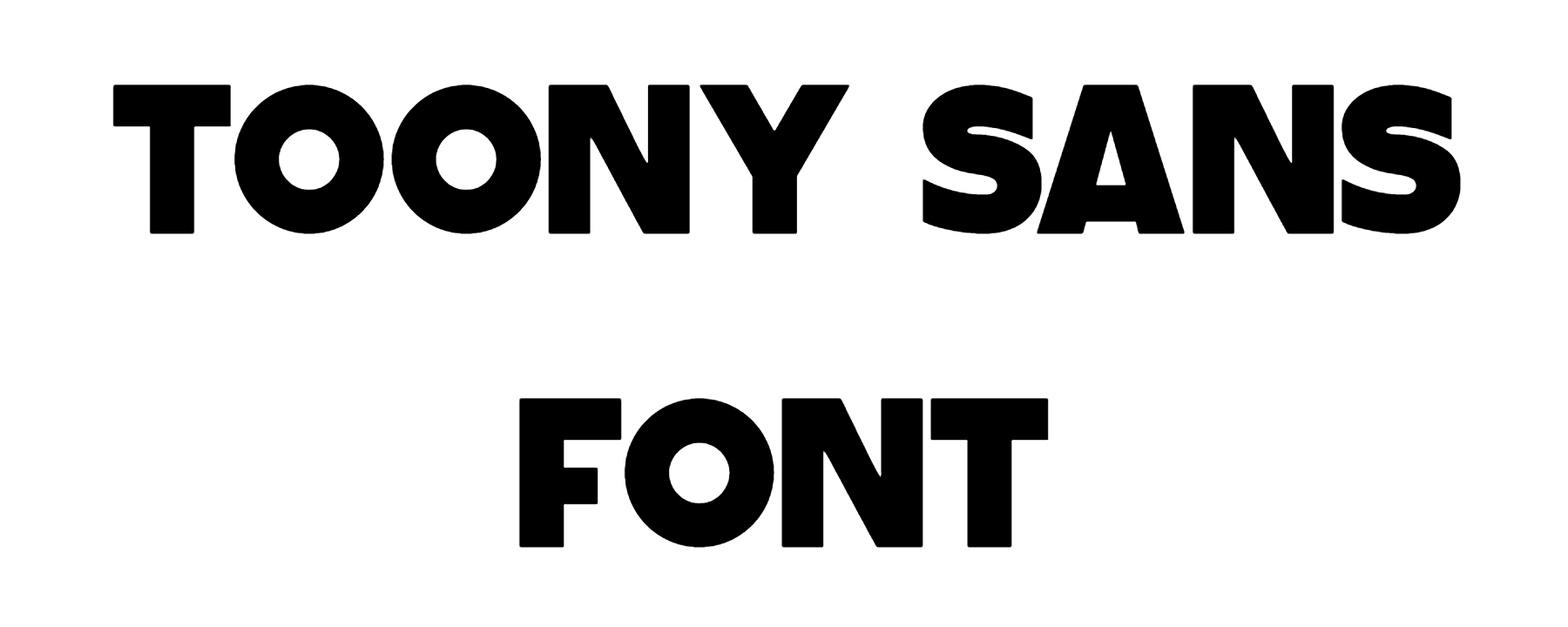
Toony Sans
Toony Sans is a sans serif font made by Mans Greback (2023). Its clean letters skip the little "feet" (serifs) of traditional type, so it looks modern and reads well on screens. You get two styles in one free ZIP, and the preview above lets you test each one before you download.
- Glyphs: 1,388 in the Regular style
- OpenType features: Ligatures, 2 stylistic sets, old-style numbers and fractions
What You Can Type With Toony Sans
Toony Sans covers the full alphabet in upper and lowercase, plus all ten numbers, so you can set names, dates and prices without switching fonts. Everyday marks like &, !, ? and @ are there too. Thanks to its accented letters, it also works for Spanish, French, German, Portuguese and Italian, not just English.
Where Toony Sans Works Best
Toony Sans is a natural fit for websites, app screens and clean logos. It works for headings and body text alike. If the download has several weights, use a heavier one for titles and a lighter one for paragraphs. Because the family has more than one style, you can mix them in a single design for headings, subheadings and highlights.
Who designed Toony Sans font?
Does Toony Sans support accented letters?
Yes. Toony Sans includes the accented letters needed for Spanish, French, German, Portuguese and Italian, so it works for more than just English.